Respekt logo
The original logotype was based on the Compacta typeface, designed by Fred Lambert for Letraset in 1963. Its new form has been carefully yet decisively redrawn into a more contemporary and confident expression. The character of the wordmark is emphasized through an accentuated central axis, strengthened horizontal strokes, and carefully balanced proportions.
Respekt is a Czech weekly news magazine published in Prague that focuses on domestic and international politics, economics, science, and culture. It was founded shortly after the fall of Communist rule in 1989 by a group of former samizdat journalists, becoming one of the first independent magazines in the Czech Republic after the end of the communist regime.
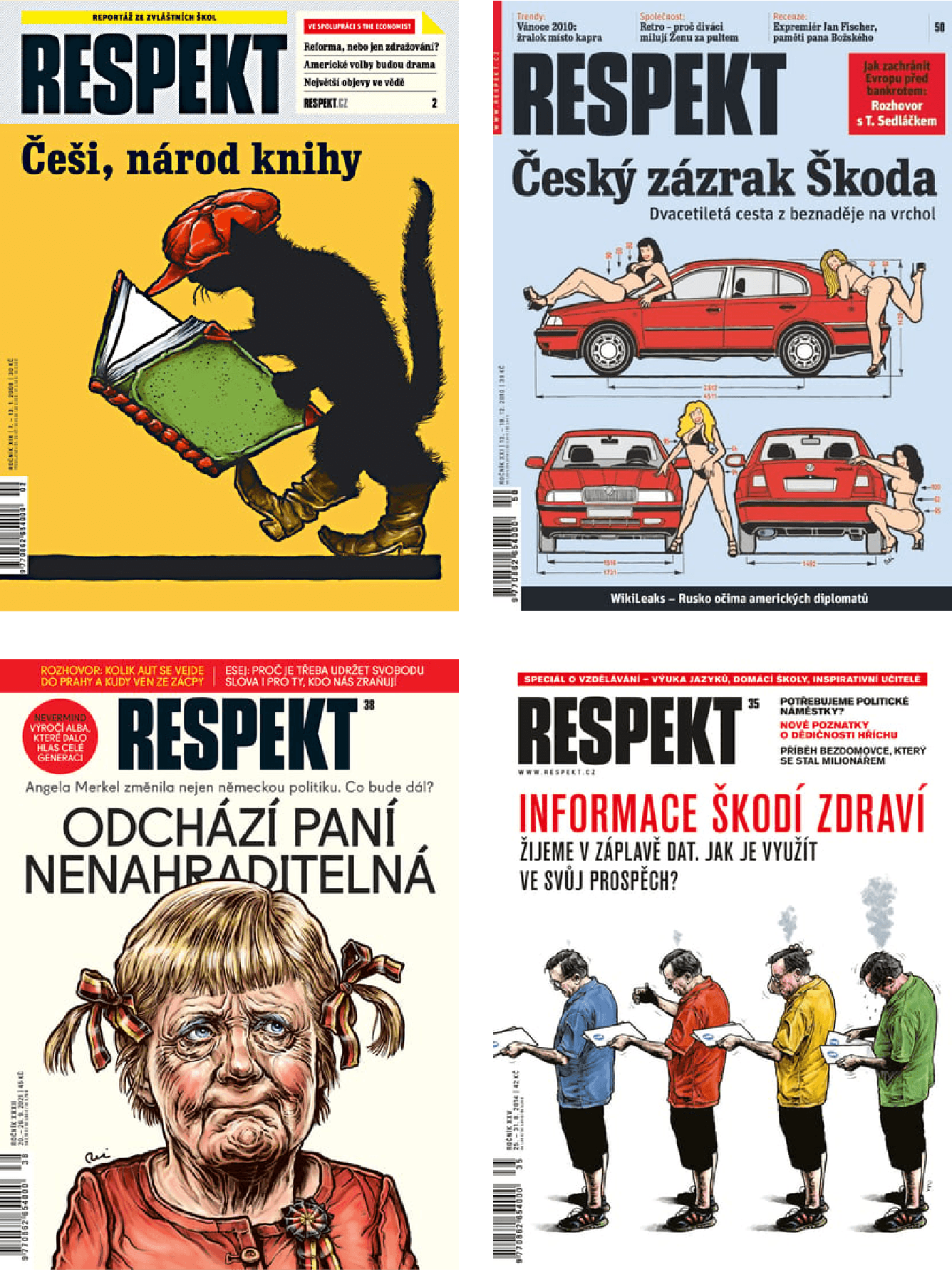
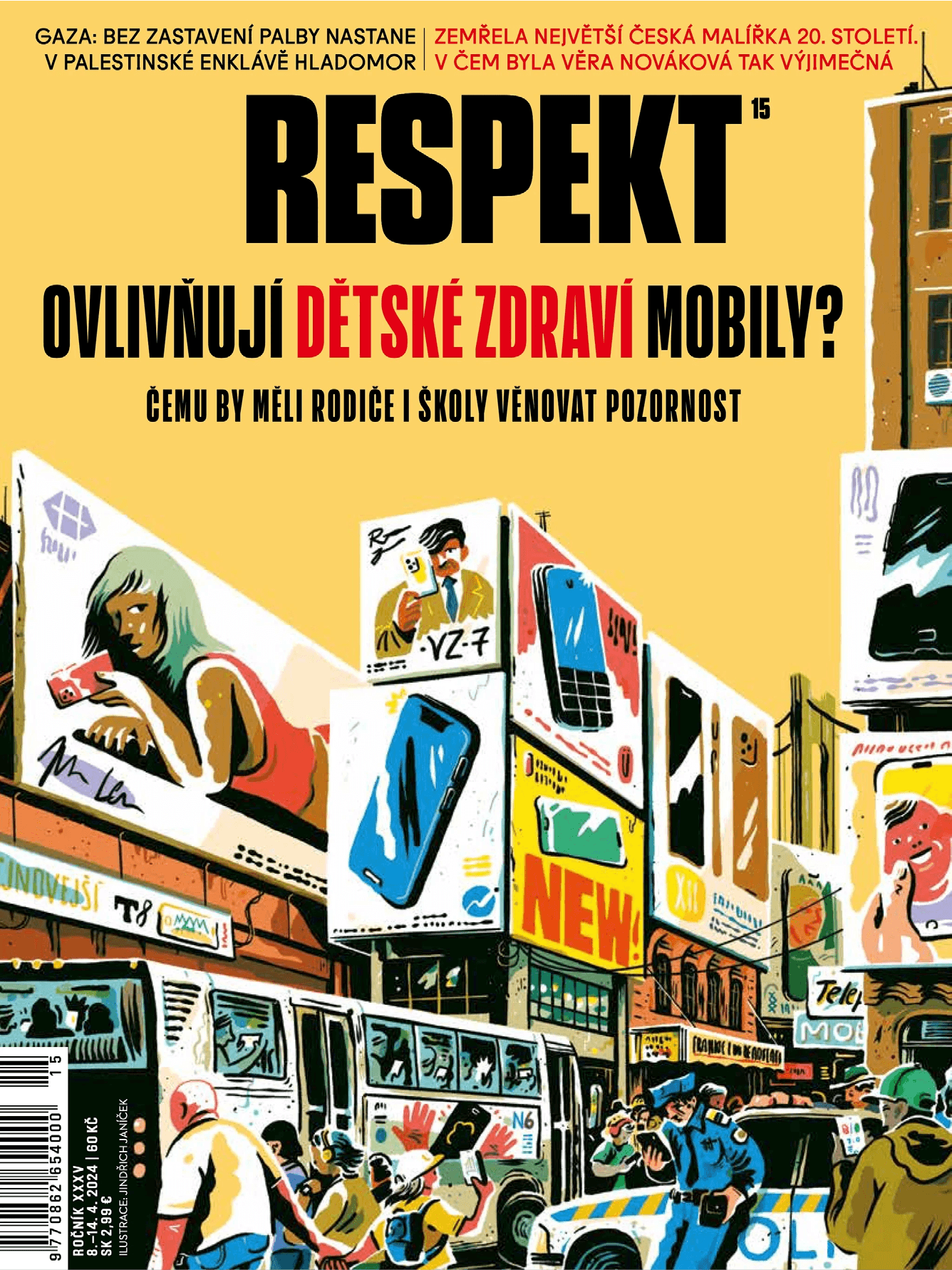
The magazine’s logo has consistently maintained its appearance despite several layout changes, as seen on the covers from 2007 to the present.